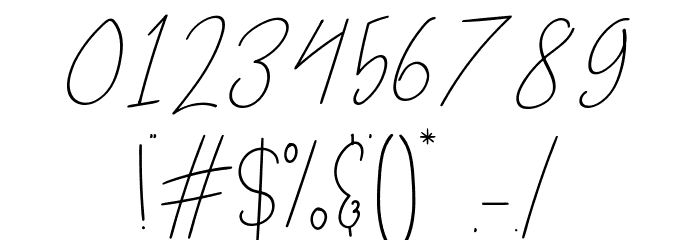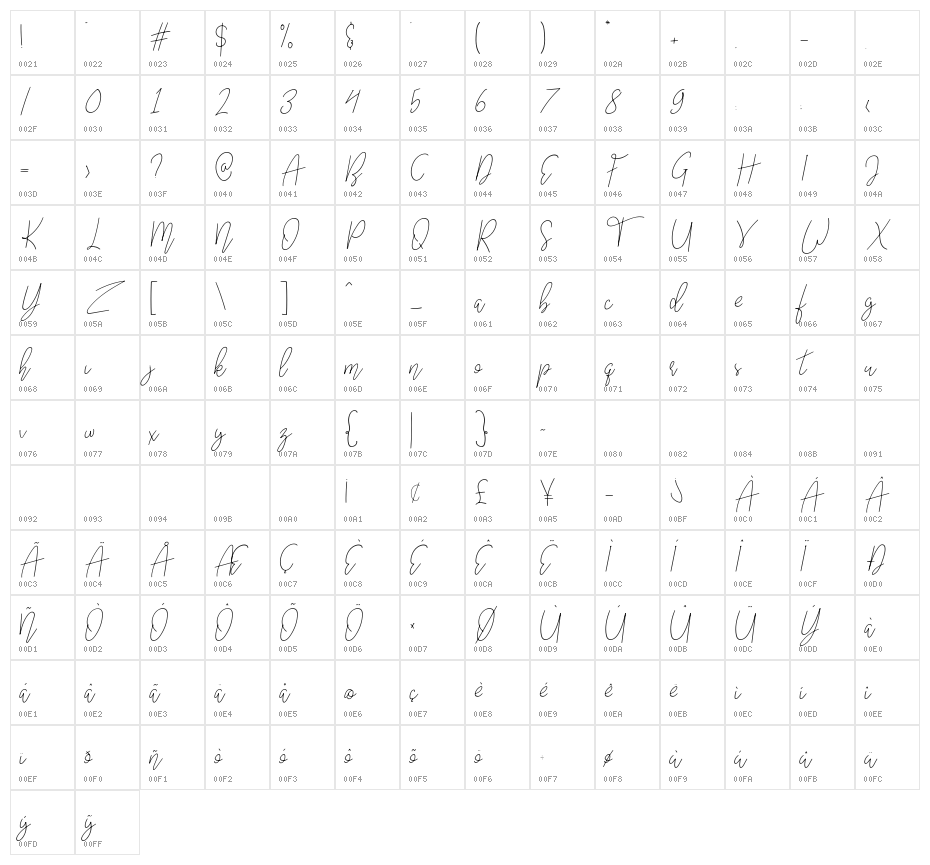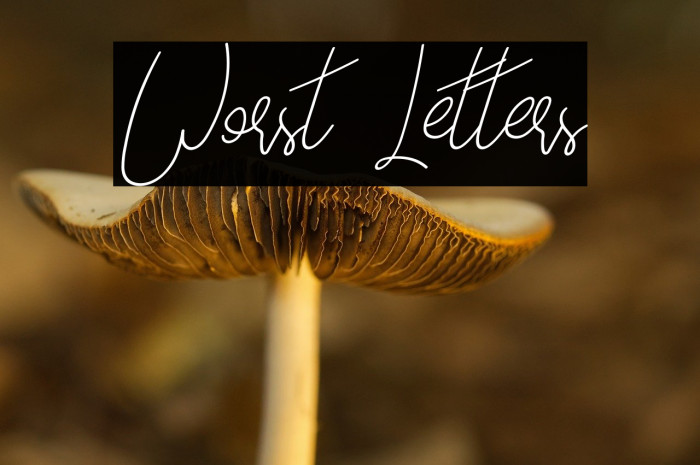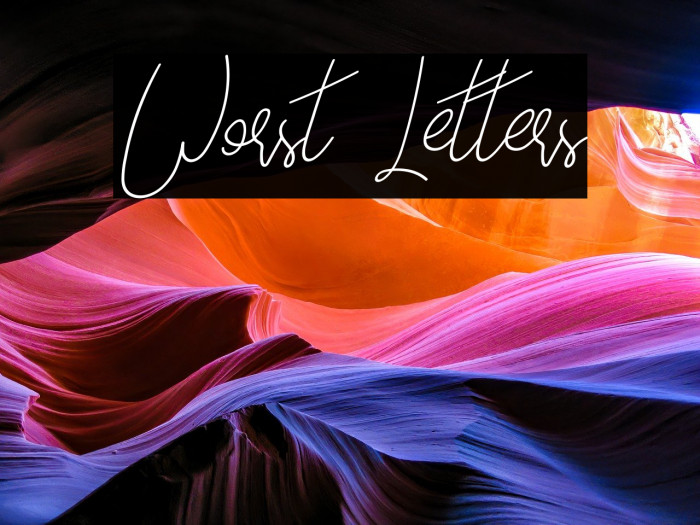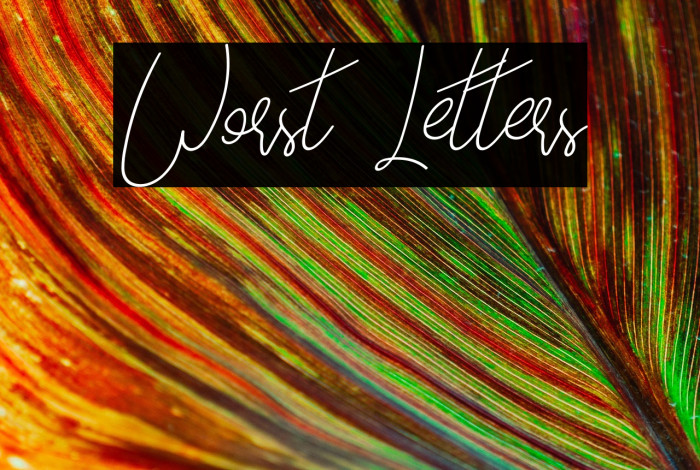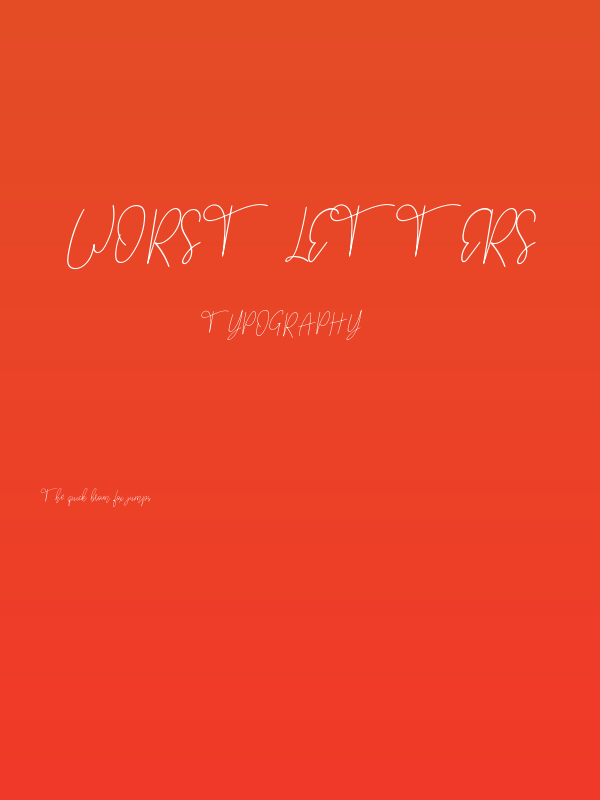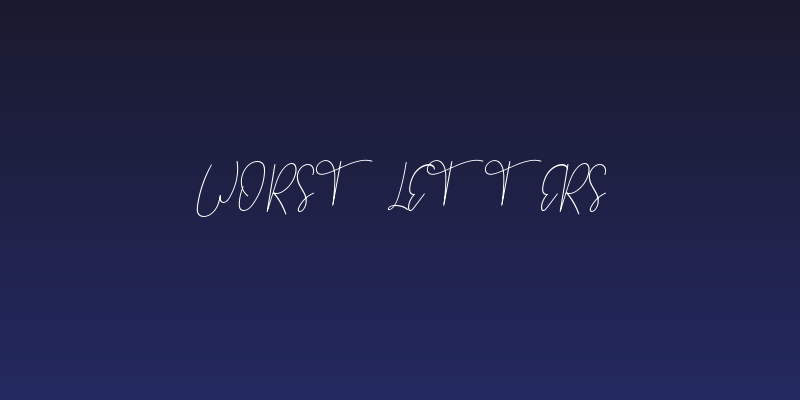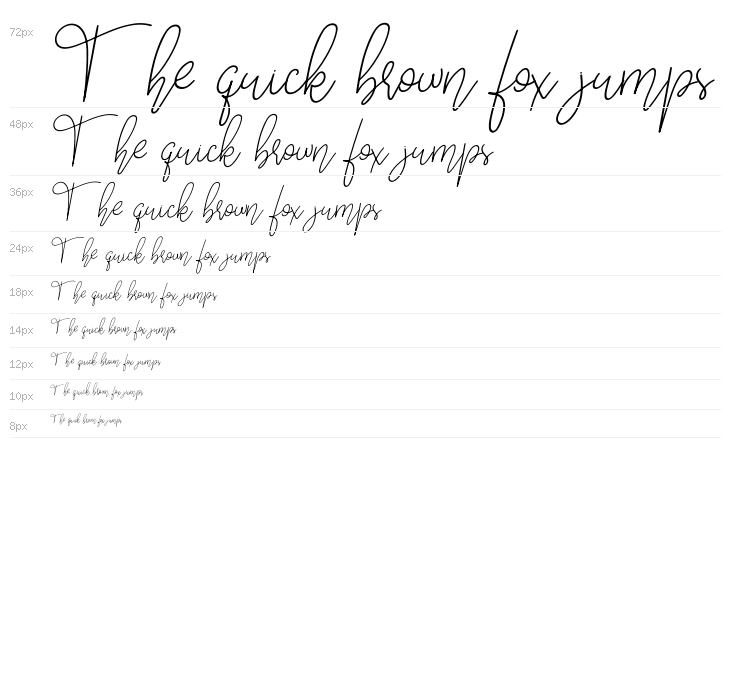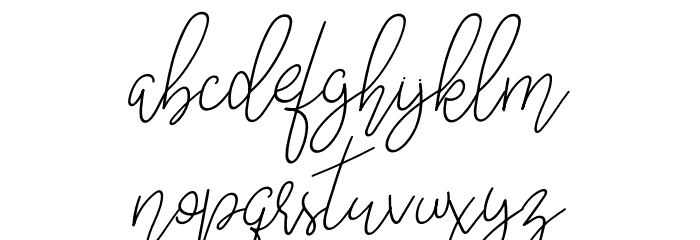
Worst Letters Font
Worst Letters Description
This font features a playful and dynamic handwritten style, characterized by its fluid and cursive strokes. The letters are slightly slanted, giving it a casual yet elegant appearance. The uppercase letters are distinct with elongated and looping ascenders, while the lowercase letters maintain a consistent flow with smooth connections. The numerals are clear and legible, matching the overall aesthetic of the font. Special characters are creatively integrated, maintaining the whimsical nature of the design. This font exudes a sense of personal touch and creativity, making it suitable for projects that require a friendly and approachable feel.